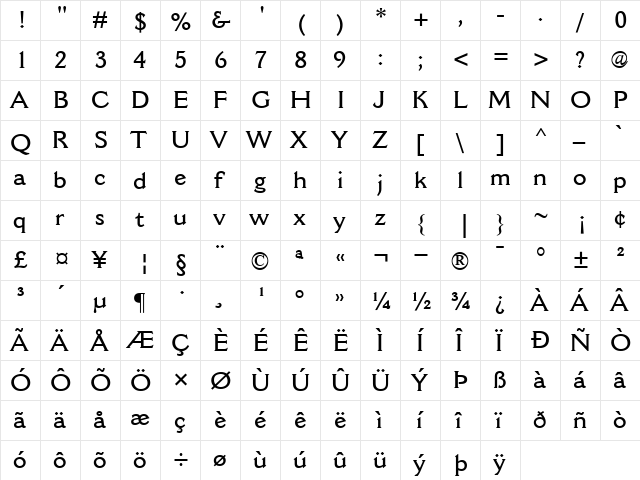
CantoriaMT-SemiBold Semi Bold
Design Context for CantoriaMT-SemiBold Typeface
CantoriaMT-SemiBold offers clean, dependable letterforms without strong stylistic allegiance, making it a practical choice for designers who need flexibility. Its bold stroke weight gives it real presence on the page.